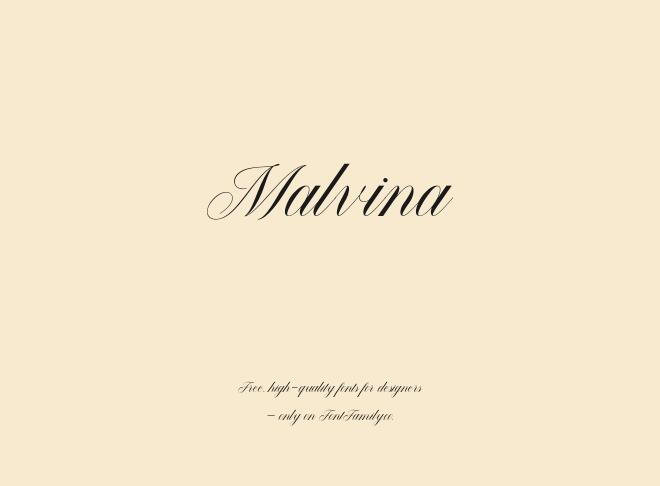
Malvina Font
Malvina Font is a modern, elegant script typeface that beautifully balances sophistication with an air of effortless casualness. Its handwritten style gives it a touch of authenticity, making it perfect for wedding invitations, branding, social media posts, and more. Designed by TypeFoundry Co, its design is reminiscent of the classic calligraphy fonts but with a modern twist. The flowing characters are easy to read, and the font includes a wide range of glyphs and ligatures. This font is a versatile choice for designers looking for a mix of classic and contemporary. Its open font license makes it free for both personal and commercial use, adding to its appeal. With Malvina Font, give your designs an edge of elegance and modernity.